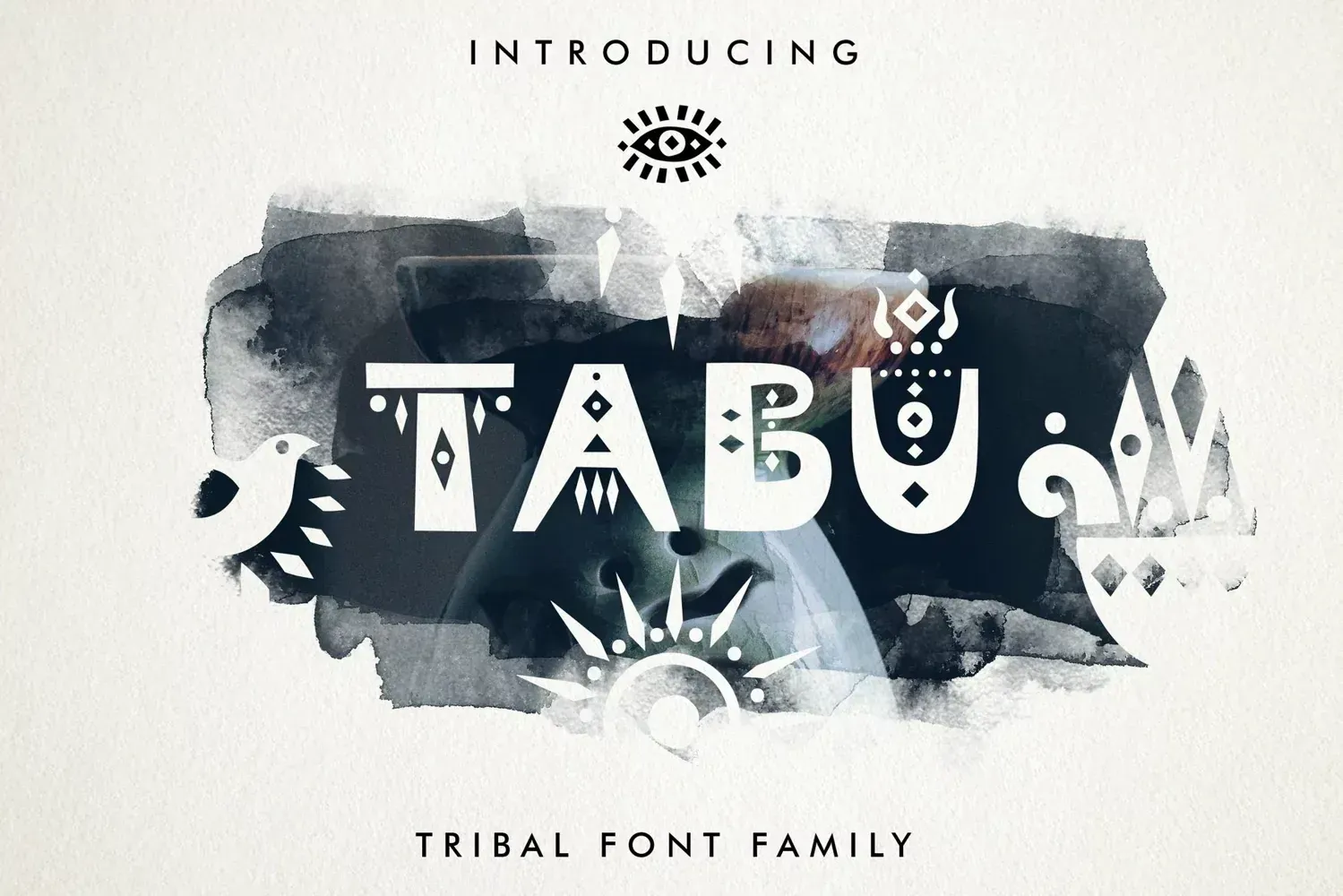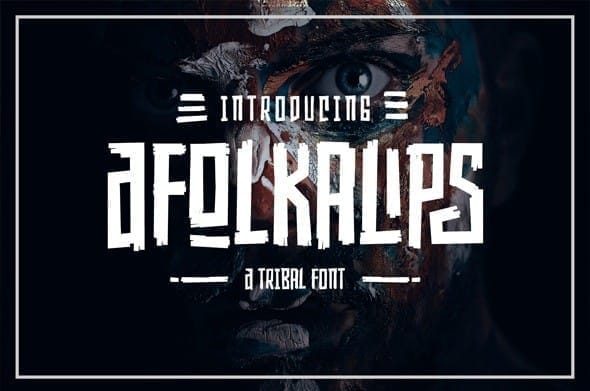
In a world saturated with generic typography, finding a font that truly stands out can be a game-changer. For graphic designers, event planners, and anyone aiming to inject a dose of cultural richness and unique character into their projects, tribal fonts offer an exciting avenue for creative expression.
These fonts, with their often bold and decorative letterforms, can instantly transport viewers to different lands and evoke a sense of ancient artistry. Whether you're crafting a brand identity for an adventurous travel company, designing invitations for a culturally themed event, or simply looking to add an exotic touch to your digital artwork, the right tribal font can make all the difference.
In this post, we'll explore 9 striking tribal fonts, highlighting their distinct characteristics and potential applications, to help you discover the perfect typeface to elevate your designs.
In today's visually driven landscape, making a memorable impact is paramount. Generic fonts often fade into the background, failing to capture attention or convey a distinct personality. Tribal fonts offer a powerful antidote to this uniformity. Their unique and often intricate designs possess an inherent ability to stand out, instantly adding character and visual interest to any project.
For businesses in the tourism or cultural sectors, a well-chosen tribal font can authentically represent the spirit and heritage of a region or community. Event planners can use these fonts to create invitations and promotional materials that evoke a specific cultural theme, setting the tone for a truly immersive experience. Even in digital design, where visual fatigue is a constant challenge, incorporating a striking tribal font can help brands and individuals cut through the noise and leave a lasting impression.
According to a study by Lucidpress, consistent branding across all platforms can increase revenue by 23%. Choosing a distinctive tribal font can be a key element in building a strong and recognizable brand identity.
Ready to infuse your designs with a touch of the exotic and the ancient? This curated list showcases seven captivating tribal fonts, each possessing its own unique flair and cultural resonance. From bold and geometric patterns to flowing, hand-drawn aesthetics, these typefaces offer a diverse palette for adding a distinctive tribal vibe to your logos, posters, websites, and more. Explore the unique characteristics of each font and discover the perfect match to bring your creative vision to life.
This striking display font captures the essence of tribal art with its bold, hand-drawn letterforms. The unique, almost hieroglyphic-like characters evoke a sense of ancient mystery and adventure, making it perfect for projects that demand attention and a touch of the exotic. Consider using Jelani for eye-catching headlines, impactful posters, or branding materials that aim to convey a strong, culturally inspired message.
With its distinctly textured and slightly eroded appearance, Raslani Tribal evokes a sense of ancient inscriptions carved in stone or wood. The sharp, angular letterforms and scattered details lend it a raw and authentic tribal feel. This font would be particularly well-suited for historical documentaries, fantasy game designs, or branding that seeks to convey a sense of ruggedness and heritage.
This tribal font family offers versatility with its Decorative, Light, and Symbols versions. The Decorative style features bold letterforms adorned with intricate ethnic patterns, perfect for making a strong visual statement. The Light version provides a more subtle, linear interpretation of the tribal aesthetic, while the Symbols font offers a range of decorative elements to complement your typography. PapaKilo is well-suited for t-shirt designs, posters, and branding that seeks a unique and customizable tribal touch.
Anthu presents a mystical and modern take on tribal aesthetics with its unique geometric style. The clean, sharp lines and triangular elements evoke a sense of ancient markings and ethereal energy. This font is versatile enough for logos, social media posts, and even film titles, lending a touch of magic and tribal mystique to a wide range of projects. Its clean structure also ensures legibility while maintaining its distinctive character.
Inspired by tree branches and ancient cave inscriptions, Rimba Andalas is a playful ethnic font with a natural, slightly rough aesthetic. Its unique letterforms, combined with optional swashes, offer a hand-drawn tribal feel perfect for nature-themed projects, children's books, or designs seeking a touch of whimsical adventure. The ability to mix uppercase and lowercase letters adds to its unique, handcrafted charm.
This sans-serif display font offers a modern yet distinctly ethnic feel. Its geometric structure is infused with unique, almost stylized tribal elements, creating a typeface that feels both contemporary and culturally inspired. Dzemaili is a strong choice for logos, magazine titles, and promotional materials where you want to convey a sense of modern sophistication with a subtle nod to tribal aesthetics.